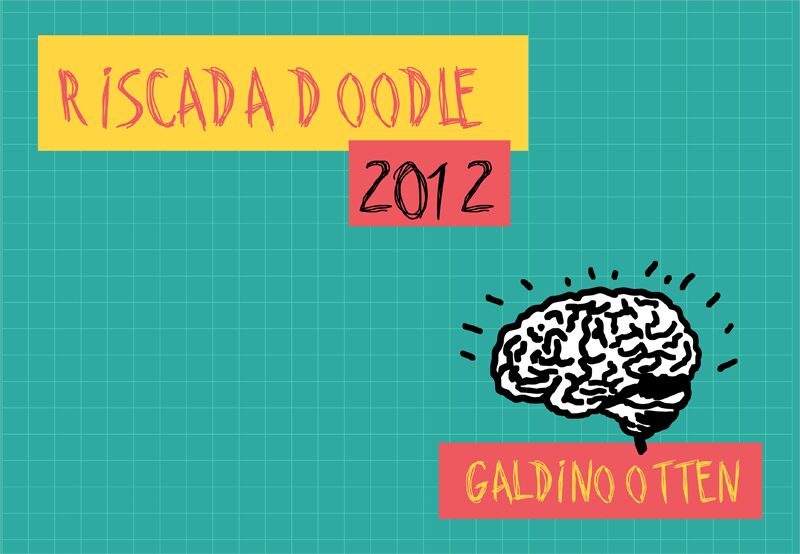
Riscada Doodle
Introducing Riscada Doodle, a semi-light semi-condensed script font designed by Galdino Otten. Its trash style gives it a unique and playful look, perfect for projects that require an artistic touch. From greeting cards to logos, posters to packaging, Riscada Doodle is sure to add a creative flair. Whether you want to give your project an edgy feel or want something with more of an organic look, this font is sure to deliver!